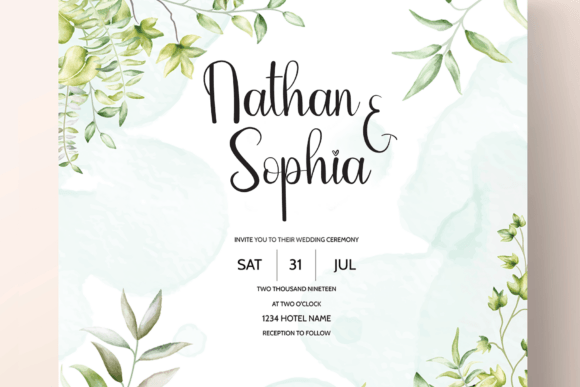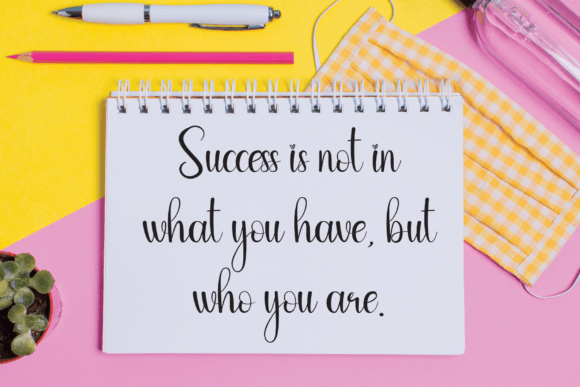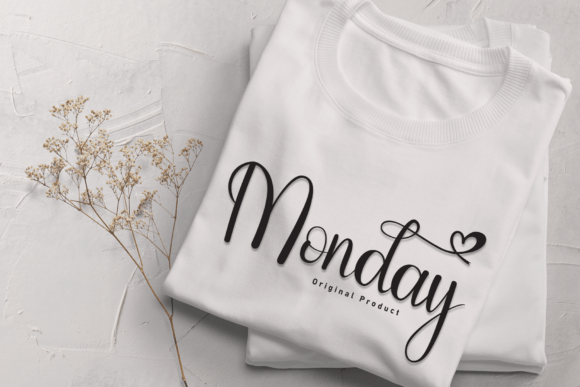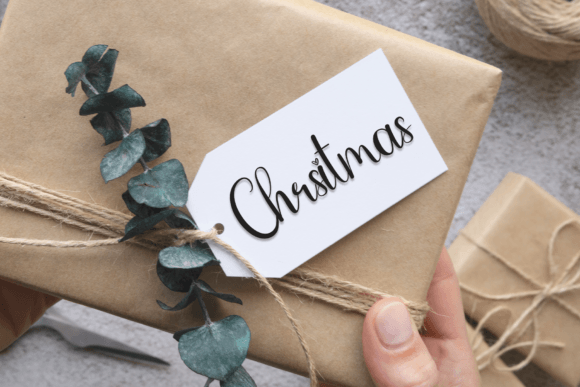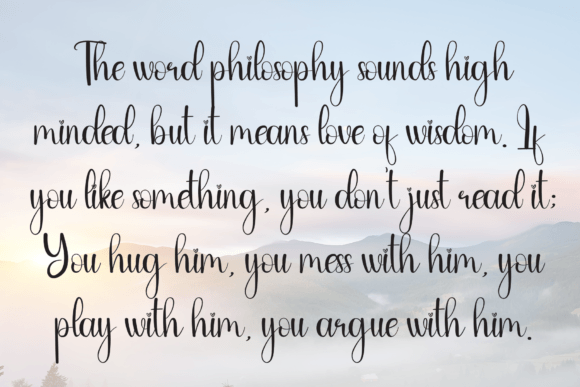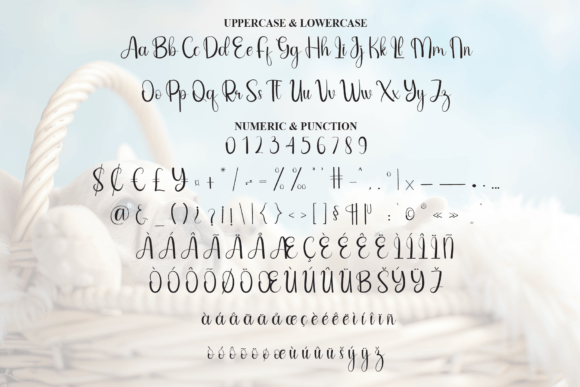
Baby Animal Font: A Charming Handwritten Display Font for Joyful Designs
Are you looking for a font that can add a touch of warmth and playfulness to your designs? Look no further than the Baby Animal Font, a delightful handwritten display font that is sure to capture the hearts of designers and crafters alike. With its adorable and engaging style, this font is perfect for creating wedding invitations, greeting cards, and any design project that requires a sprinkle of joy.
What Makes Baby Animal Font So Special?
The Baby Animal Font is a unique and charming font that is imbued with an endearing and amiable quality. Its distinctive and delightful style effuses sweetness, making it an exceptional choice for designers who want to create memorable and fun designs. Whether you’re creating a wedding invitation, a greeting card, or a social media post, this font is sure to add a touch of whimsy and playfulness to your design.
Wedding invitations and greeting cards are special occasions that require a font that is both elegant and playful. The Baby Animal Font is perfect for these types of designs, as it adds a touch of warmth and personality to your message. Imagine creating a wedding invitation with a font that is both sophisticated and adorable, or a greeting card that is sure to bring a smile to the recipient’s face. With the Baby Animal Font, you can create designs that are both memorable and fun.
Adding a Touch of Joy to Your Designs
The Baby Animal Font is all about adding a touch of joy to your designs. Its adorable and engaging style is sure to capture the hearts of your audience, whether you’re designing for a client or for your own personal projects. With this font, you can create designs that are both playful and sophisticated, making it perfect for a wide range of design projects.
Key Features of Baby Animal Font
- Handwritten display font: The Baby Animal Font is a handwritten display font that is perfect for creating eye-catching designs.
- Adorable and engaging style: The font has an adorable and engaging style that is sure to capture the hearts of your audience.
- Distinctive and delightful: The font is distinctive and delightful, making it an exceptional choice for designers who want to create memorable and fun designs.
- Perfect for wedding invitations and greeting cards: The font is perfect for wedding invitations and greeting cards, as it adds a touch of warmth and personality to your message.
Tips for Using Baby Animal Font
Here are some tips for using the Baby Animal Font in your designs:
- Use it for headings and titles: The Baby Animal Font is perfect for headings and titles, as it adds a touch of whimsy and playfulness to your design.
- Pair it with a simple font: Pair the Baby Animal Font with a simple font to create a beautiful contrast in your design.
- Experiment with different colors: Experiment with different colors to find the perfect combination that matches your brand or design style.
In conclusion, the Baby Animal Font is a charming handwritten display font that is perfect for designers and crafters who want to add a touch of joy and playfulness to their designs. With its adorable and engaging style, distinctive and delightful quality, and perfect for wedding invitations and greeting cards, this font is sure to capture the hearts of your audience. So why not give it a try and see how it can elevate your designs to the next level?